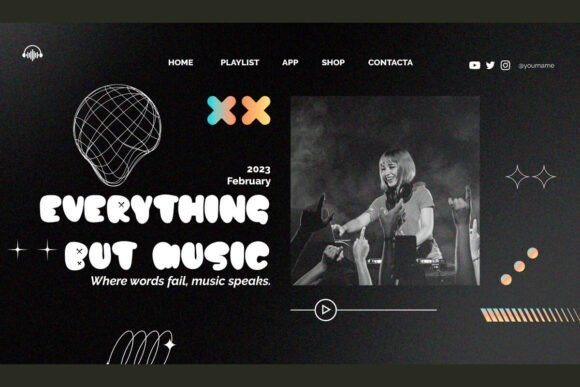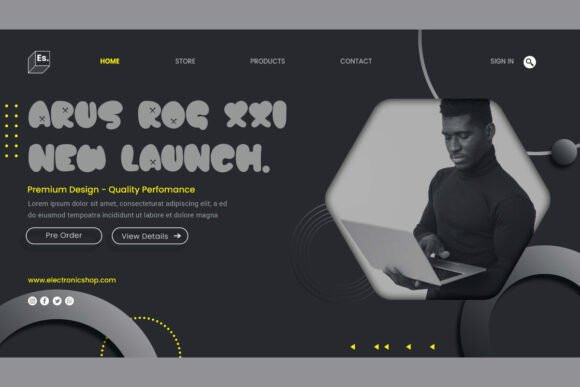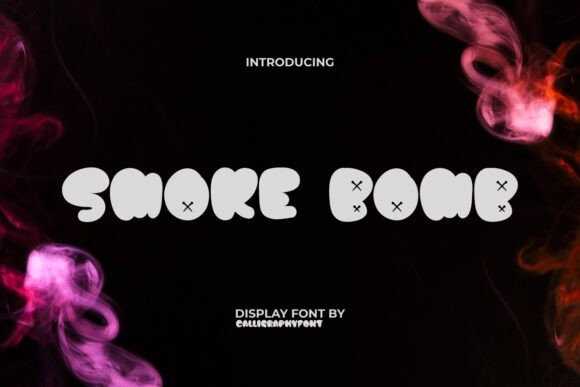
Smoke Bomb Font
Smoke Bomb Font is a trendy cute yet scary bubble display font with a classic look.It is a combination of the essence of bubble dynamics with a modern and slightly funky style. Express creatively and be there to support your visual design, such as billboard, blogs, brand logo, brochure, cards, cover, flyer, header, packaging design, pamphlet, poster, product label, quotes, screen print, signage board, stationery, sticker, title, website, and more.